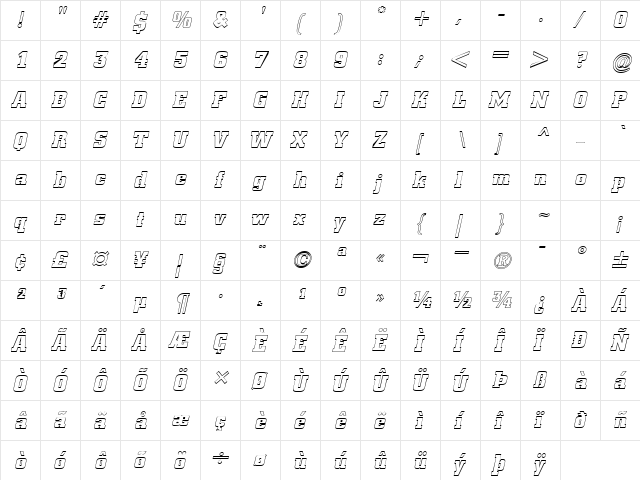
BorghsHollow Italic
Design Context for BorghsHollow Typeface
BorghsHollow offers clean, dependable letterforms without strong stylistic allegiance, making it a practical choice for designers who need flexibility. Its italic angle brings a sense of urgency and motion to the letterforms.
Pro Tip: Use BorghsHollow for emphasis, pull quotes, and subheadings where its slanted energy can add rhythm to the layout.